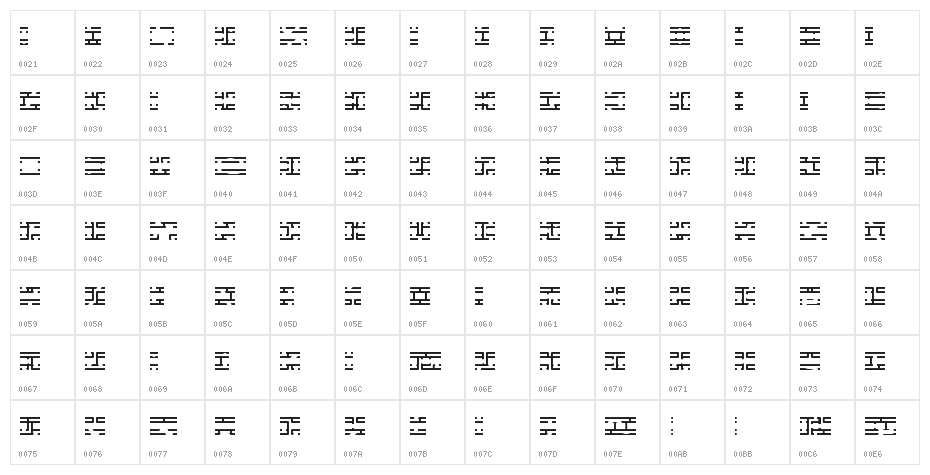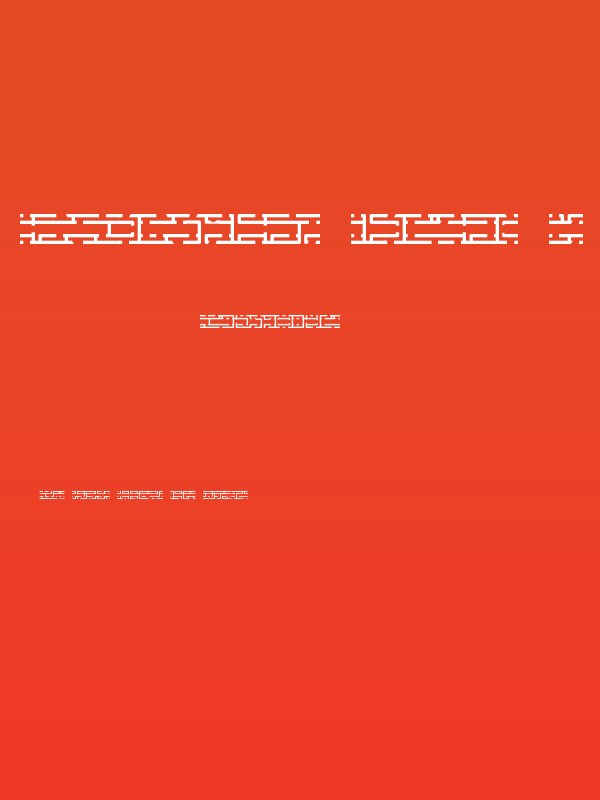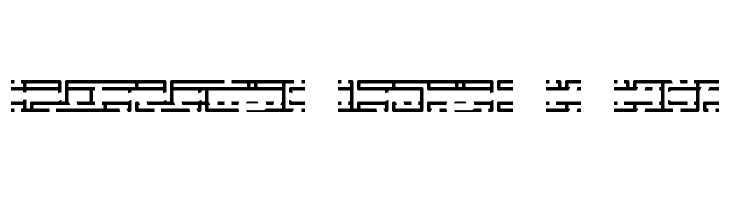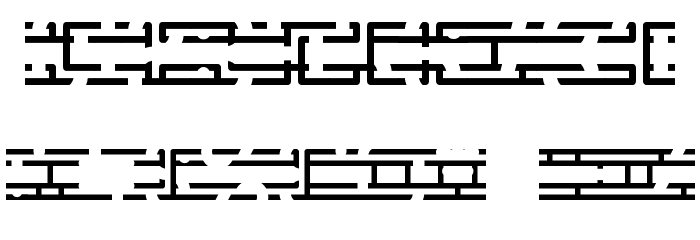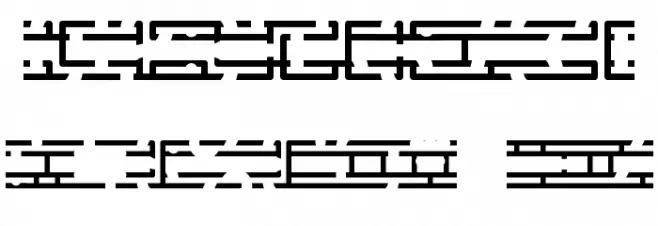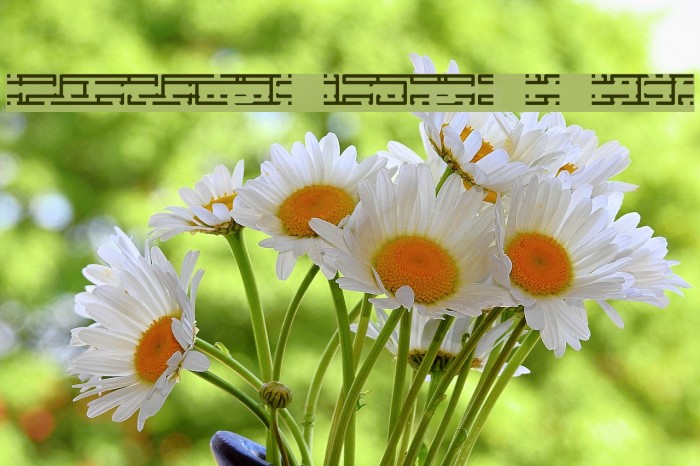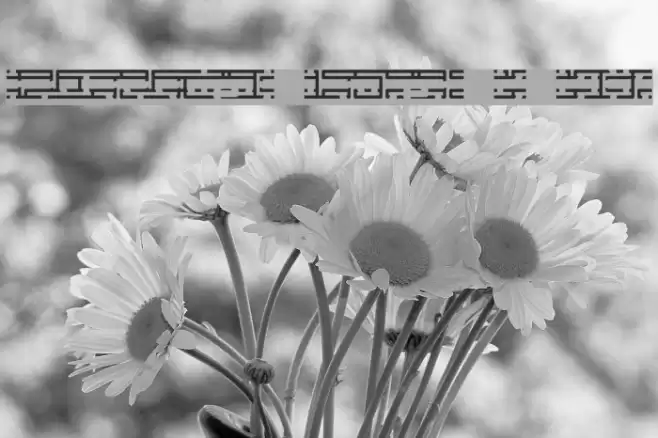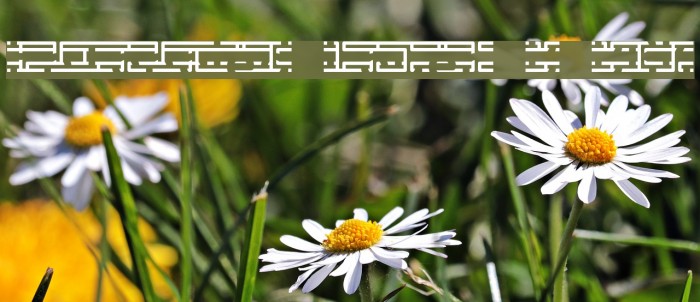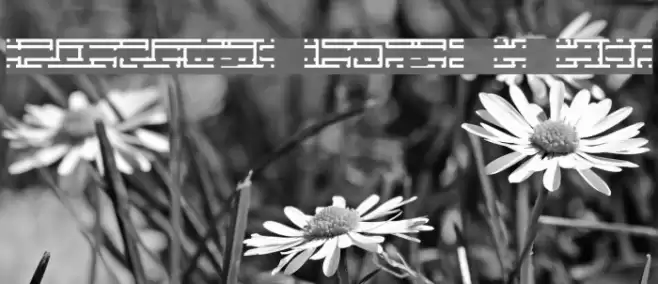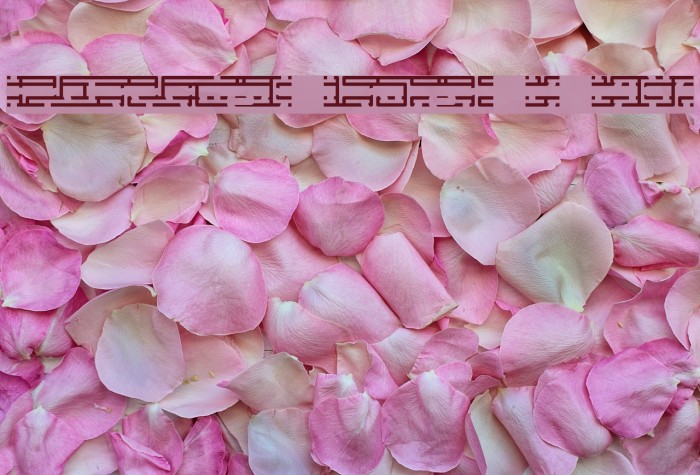
Entangled Layer B BRK Font
Entangled Layer B BRK Description
This font is a highly decorative and intricate design, featuring a maze-like pattern that intertwines and overlaps to form each character. The letters are composed of thick, bold lines with a consistent width, creating a uniform appearance across all characters. The style is reminiscent of a digital or futuristic aesthetic, with a geometric and abstract quality. The characters are tightly spaced, adding to the complexity and entangled nature of the design. This font is not intended for readability in body text but rather for artistic and visual impact in headlines or graphic design projects.
| Overall Style | Futuristic, Abstract |
| Use Case | Headlines, Logos, Artistic designs |
| Proposed Projects | Ideal for use in graphic design projects, posters, album covers, or any creative work requiring a bold, artistic statement. |